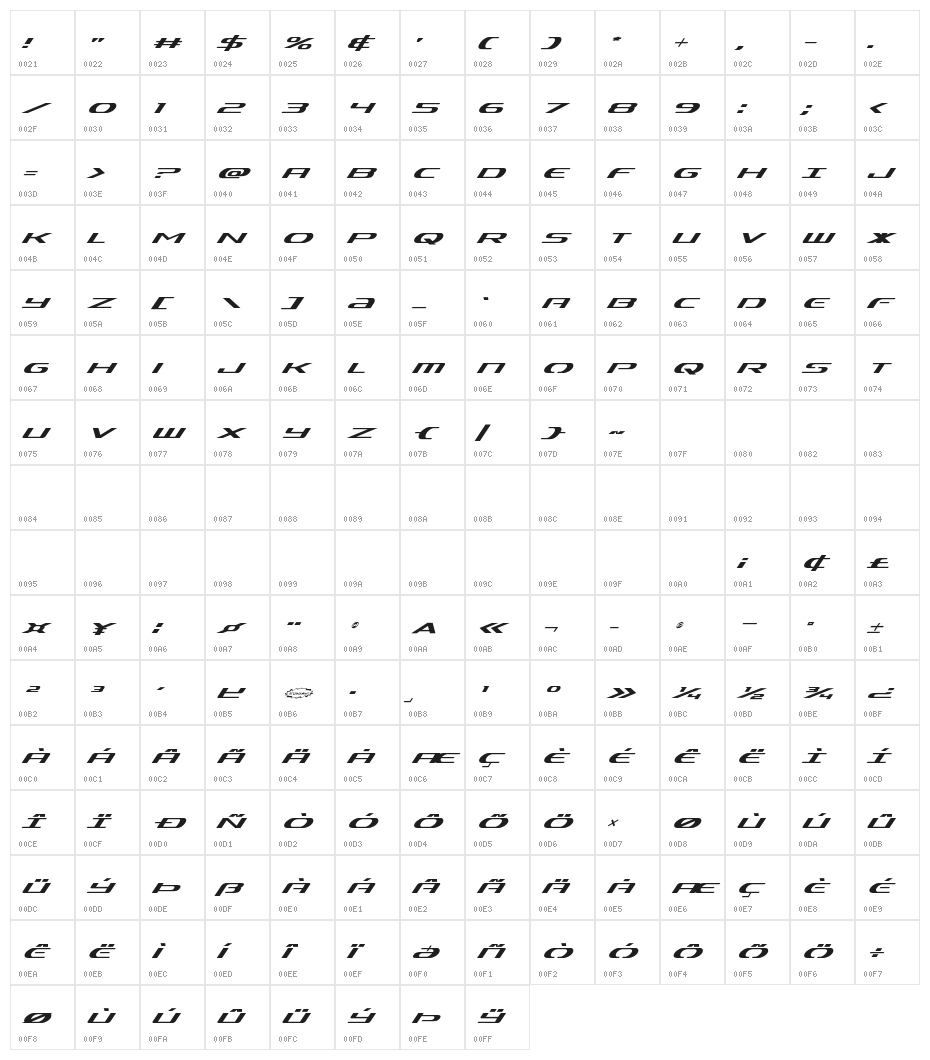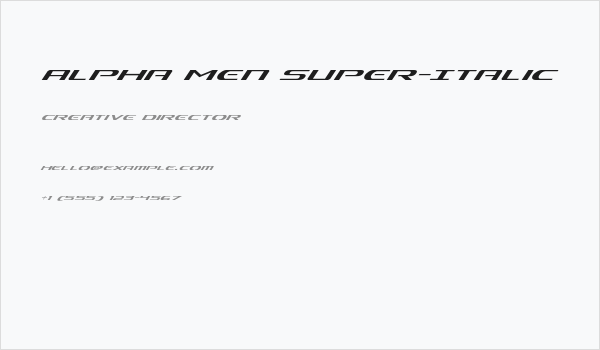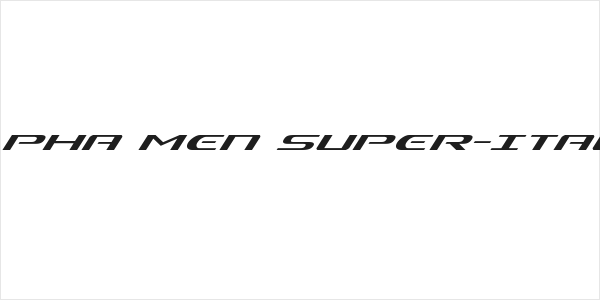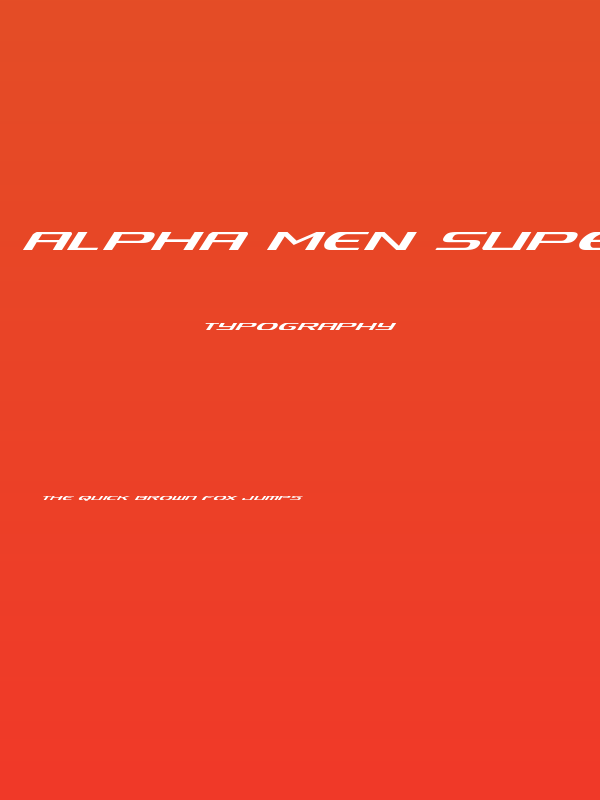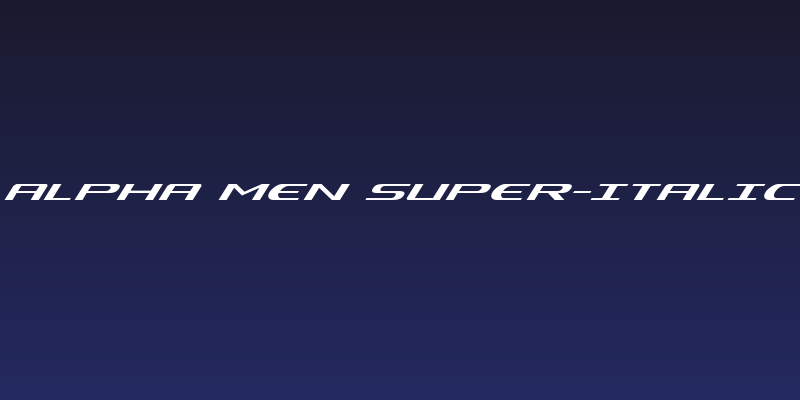
Alpha Men Super-Italic Font
Alpha Men Super-Italic Description
This font features a dynamic and futuristic design, characterized by its italicized and slanted letterforms that convey a sense of speed and movement. The characters are bold and angular, with sharp edges and a streamlined appearance. The uppercase and lowercase letters maintain a consistent style, while the numerals and special characters complement the overall aesthetic. The font's modern and sleek design makes it suitable for projects that require a bold and impactful visual presence.
| Proposed Projects | Ideal for sports branding, automotive designs, video game titles, and sci-fi themed projects. |